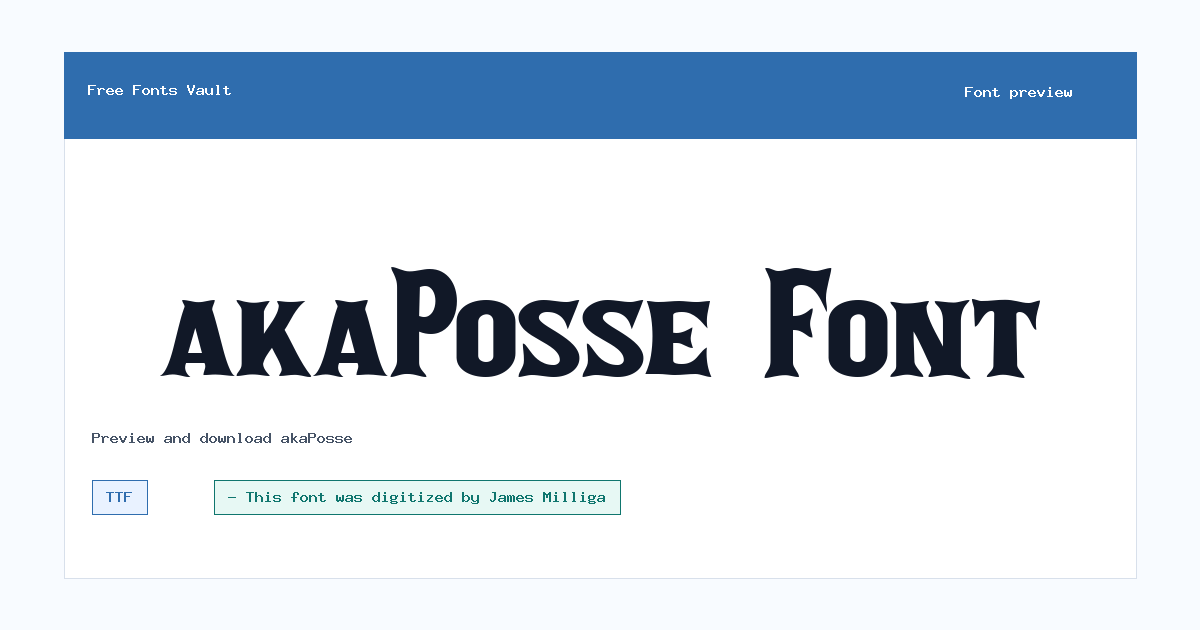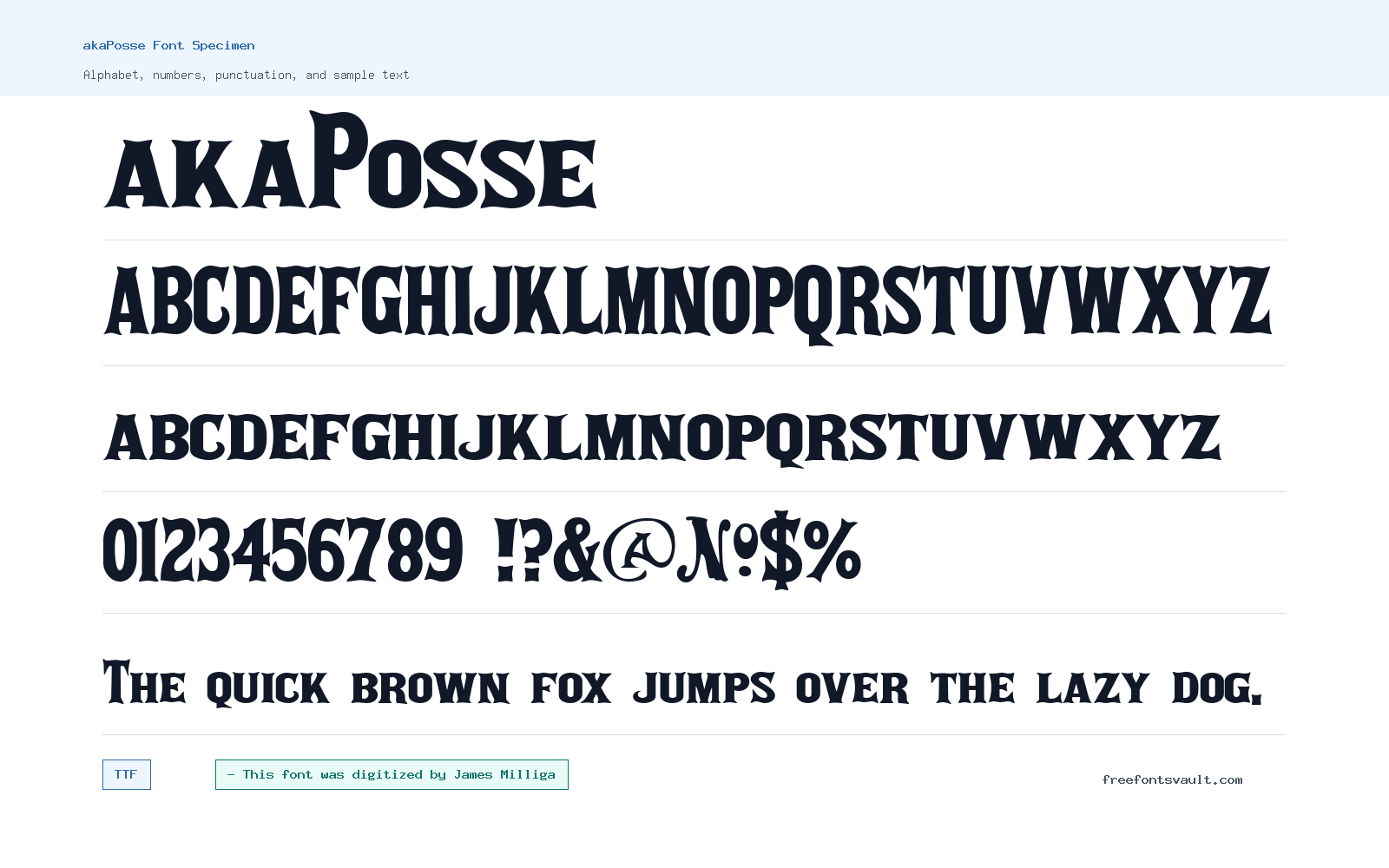
akaPosse
- Designer James Milligan
- Foundry James Milligan
akaPosse is James Milligan and akaType’s condensed Western display font, digitized in 2005. Its pointed slab serifs and pinched waist make it look closer to saloon and wood-type lettering than to an ordinary bold serif.
The specimen shows tall, narrow capitals with flared top and bottom strokes. Curves pinch inward, the capital A has a sharp central notch, and the lowercase repeats the same poster-like construction rather than becoming a quiet reading face. Numerals are equally decorative, so even a short price or date will look themed.
Use akaPosse for one display layer: a Western poster title, food label, event badge, game heading or short vintage wordmark. It is not a neutral body serif. The shapes become crowded when tracking is tight, and mixed-case text can look smaller than the capitals, so preview the final words rather than judging only the alphabet.
Start with one to five words in uppercase, then test the same phrase in title case. Watch the narrow M, W and repeated vertical strokes. Add tracking before adding outlines; a heavy outline can erase the distinctive inner notches.